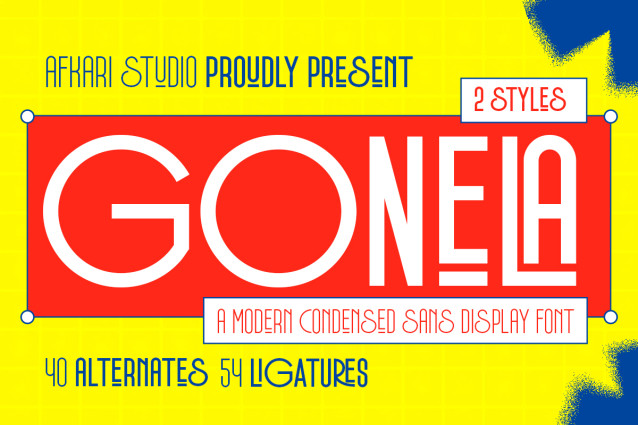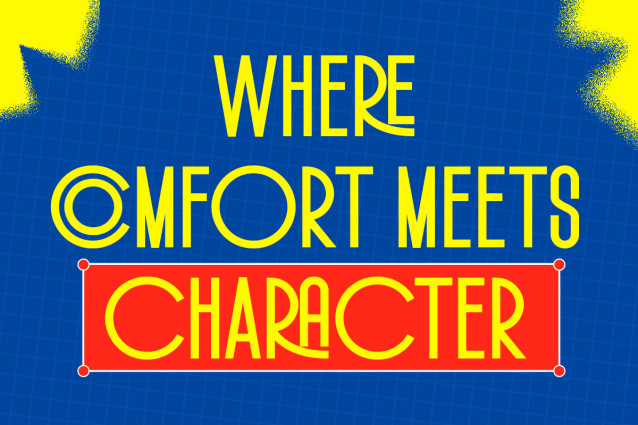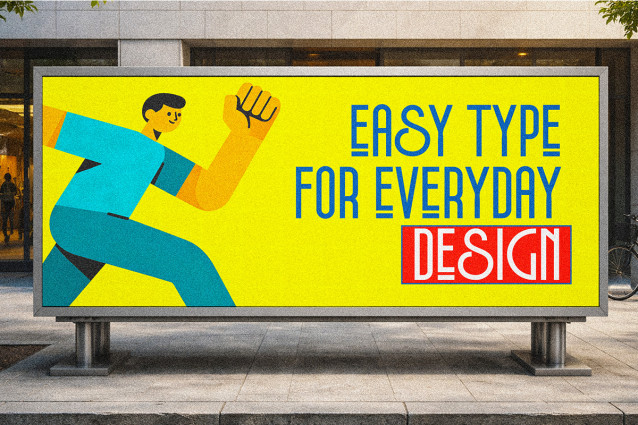
Gonela – Modern Condensed Sans Display Font
Gonela is a modern condensed sans display font designed to deliver bold clarity, sleek structure, and contemporary visual impact. Built with tall proportions and narrow spacing, this typeface maximizes space efficiency while maintaining strong readability. Its clean lines and balanced geometry make Gonela a powerful choice for headlines, branding, and high-impact typography.